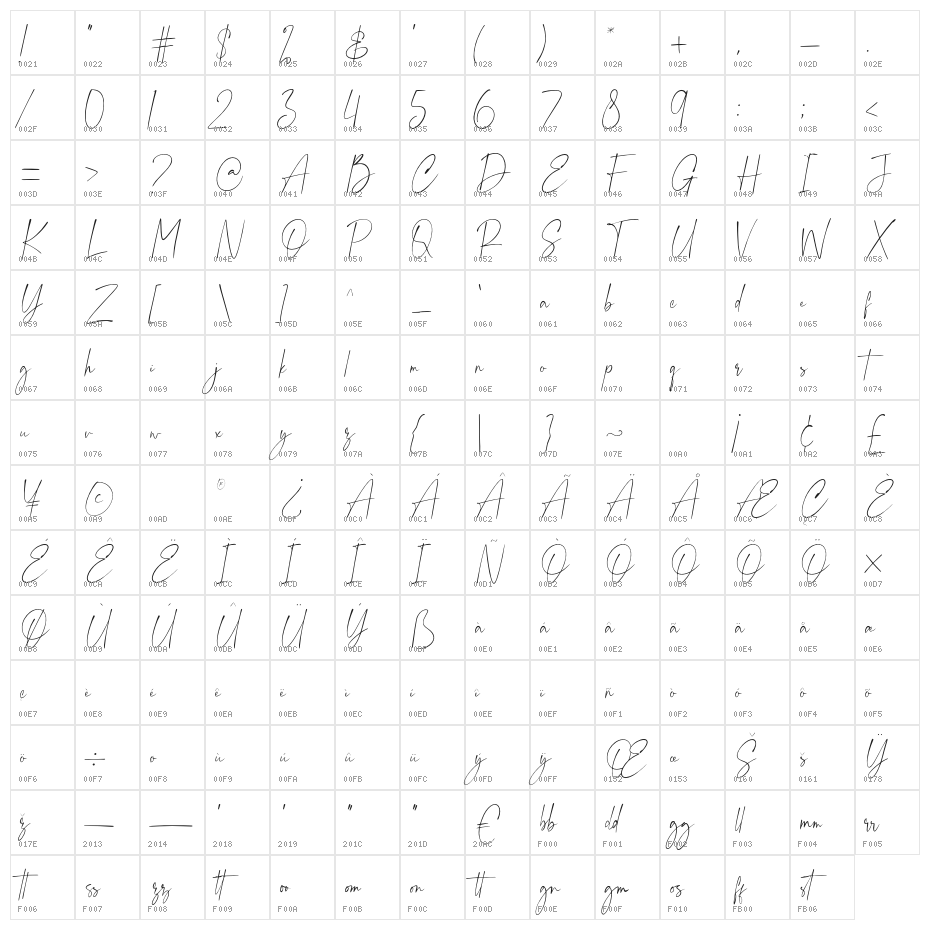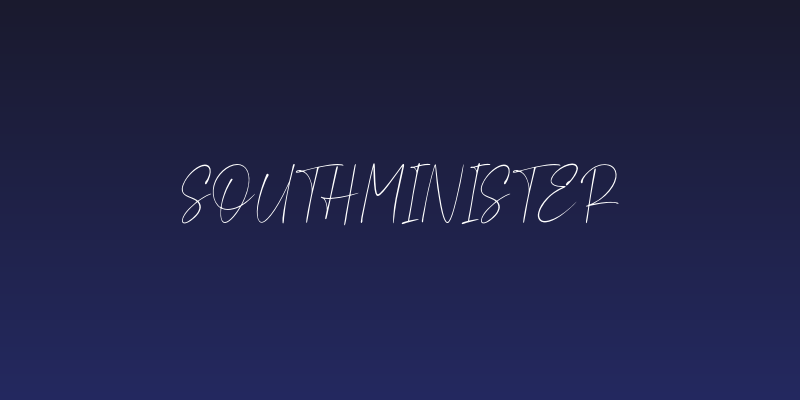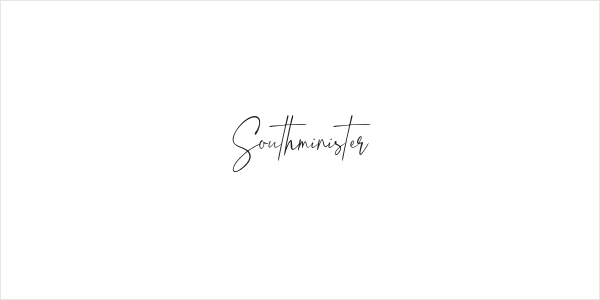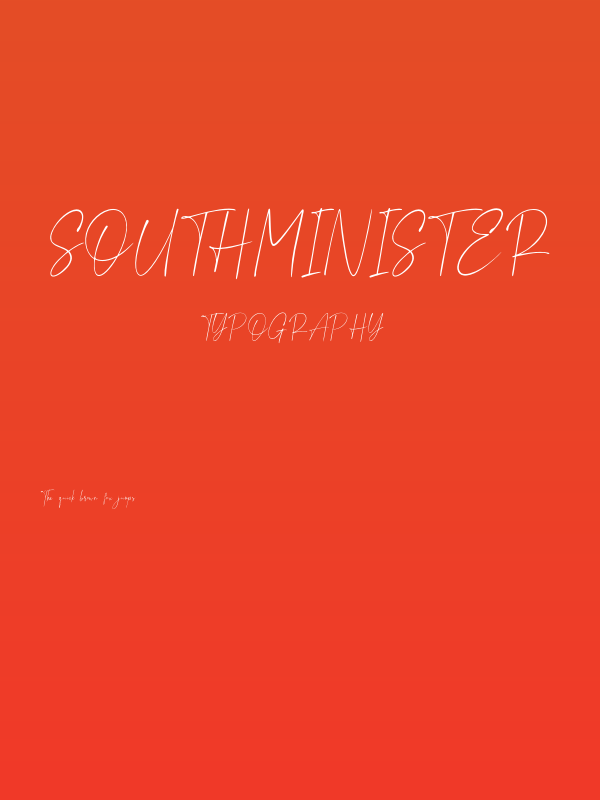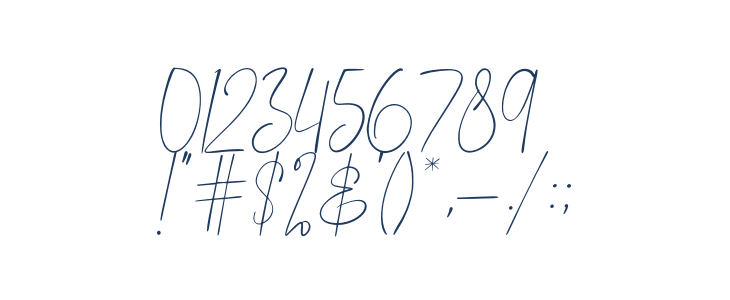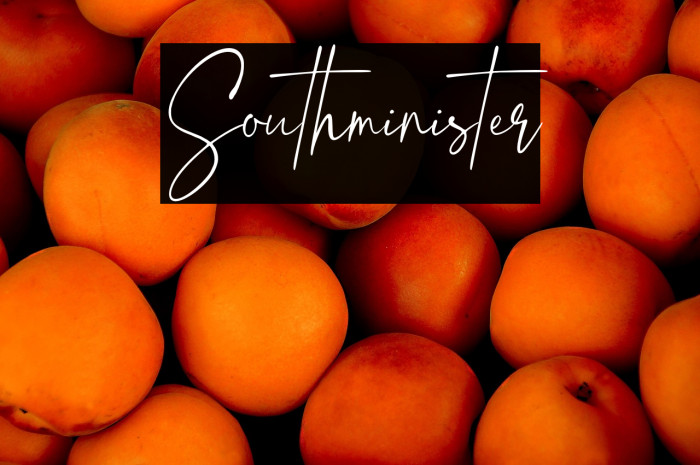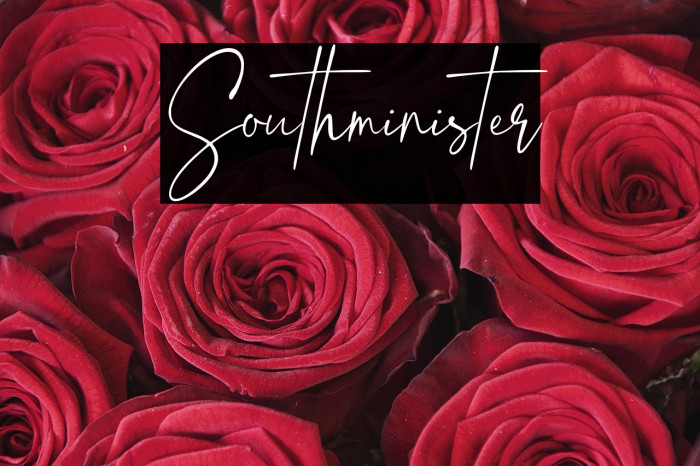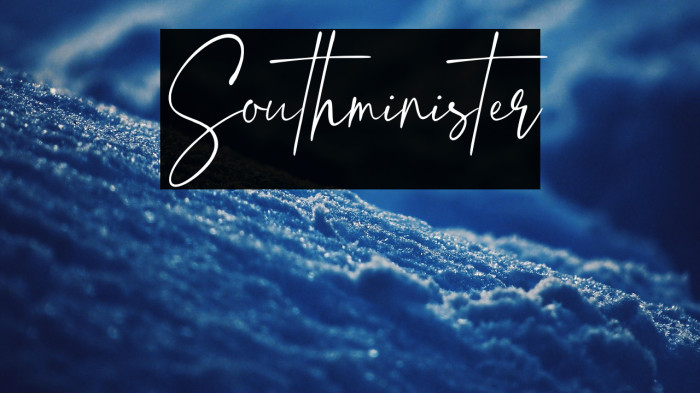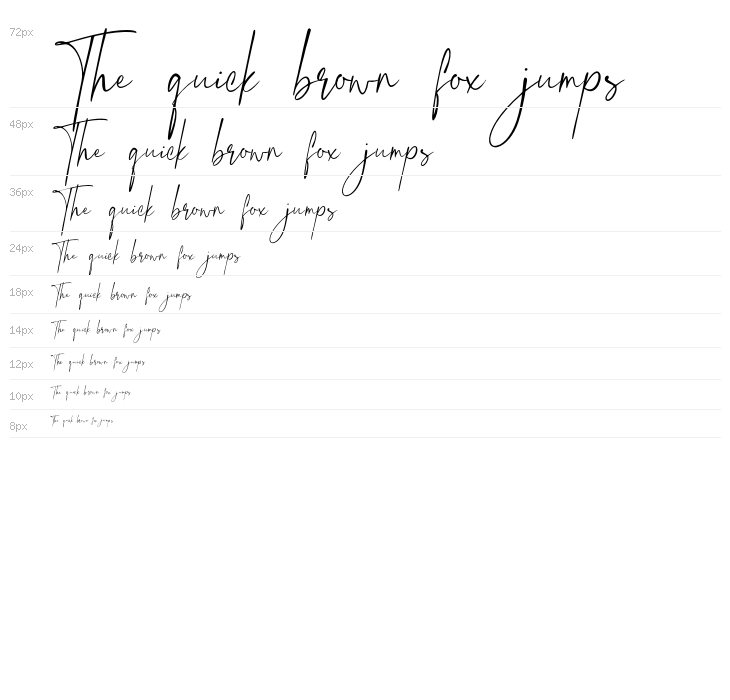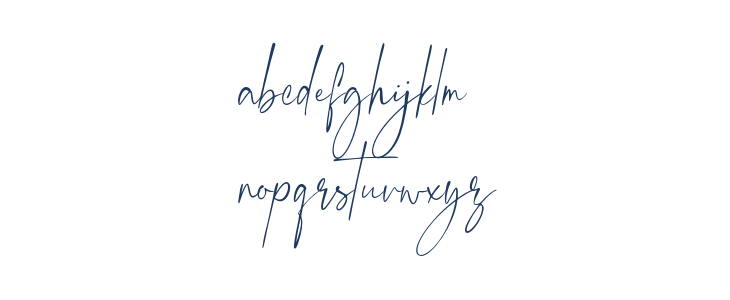
Southminister Font
Southminister Description
This font exudes a modern and elegant handwritten style, characterized by its flowing and interconnected letterforms. The uppercase letters are tall and slender, with a slight slant that adds a dynamic feel. The lowercase letters are more cursive, featuring graceful loops and curves that enhance its sophisticated appearance. The numerals are consistent with the overall style, maintaining the same thin and elongated strokes. Special characters are integrated seamlessly, complementing the font's aesthetic. The overall impression is one of elegance and fluidity, making it suitable for creative and artistic projects.